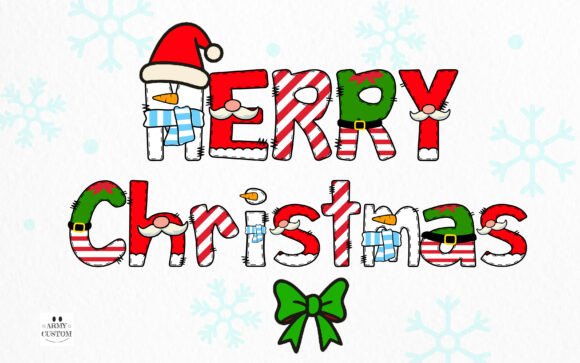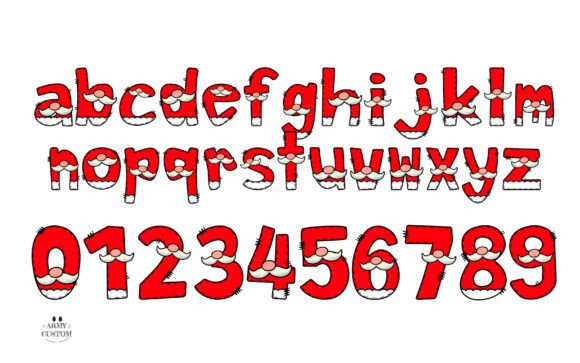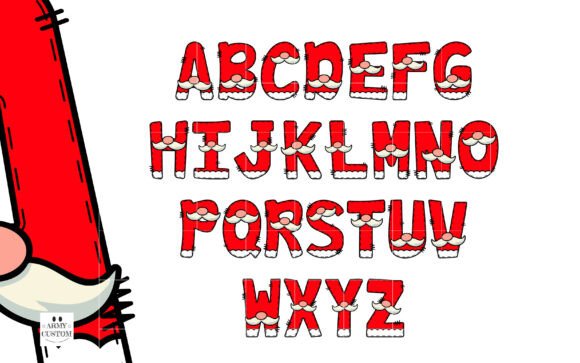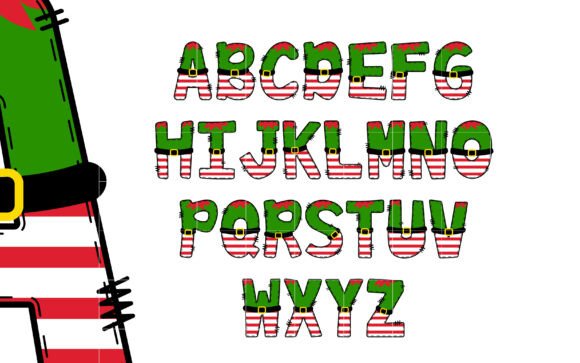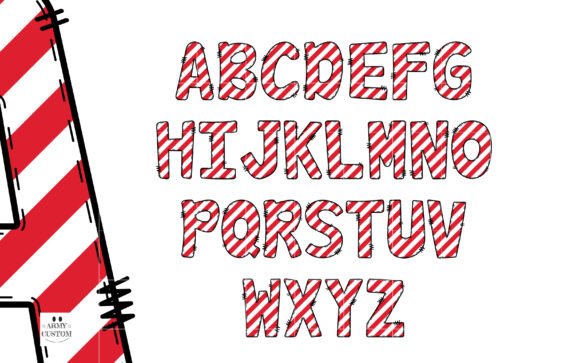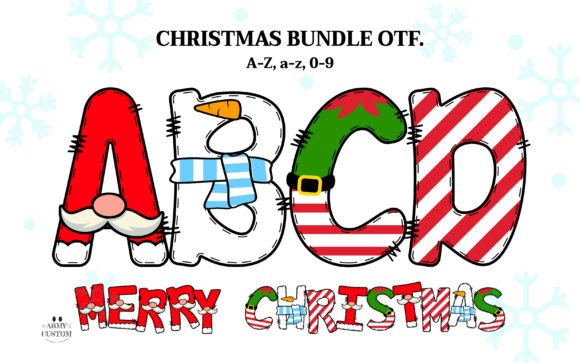
Introducing the Christmas Bundle Font: A Whimsical Addition to Your Holiday Design Toolkit
Are you looking for a font that embodies the playful and joyful spirit of the holiday season? Look no further than the Christmas Bundle Font, a 4-styled color font that is sure to add a dash of merriment to any design project. This charming, elfish font is inspired by the adorable antics of Santa’s helpers and is the perfect choice for creating vibrant holiday decorations or adding a touch of whimsy to your designs.
A Font that Brings Joy to Your Designs
The Christmas Bundle Font is more than just a font – it’s an experience. With its jovial style and colorful design, every letter spelled out becomes a joyous celebration. Whether you’re creating holiday cards, decorations, or social media graphics, this font is sure to bring a smile to your face and a touch of magic to your designs.
- The Christmas Bundle Font is a 4-styled color font, offering a range of design options to suit your needs.
Tips for Using the Christmas Bundle Font
So, how can you make the most of the Christmas Bundle Font? Here are a few tips to get you started:
- Use the font to create eye-catching holiday cards and invitations that are sure to impress your friends and family.
- Add a touch of whimsy to your social media graphics and make your holiday posts stand out from the crowd.
- Use the font to create vibrant holiday decorations, such as garlands, banners, and signs.
- Experiment with different colors and design combinations to make the font truly your own.
Why Choose the Christmas Bundle Font?
So, why should you choose the Christmas Bundle Font for your holiday design projects? Here are just a few reasons:
- The font is incredibly versatile and can be used for a wide range of design projects.
- The font is highly customizable, allowing you to experiment with different colors and design combinations.
- The font is sure to add a touch of magic and whimsy to your designs, making them truly special.